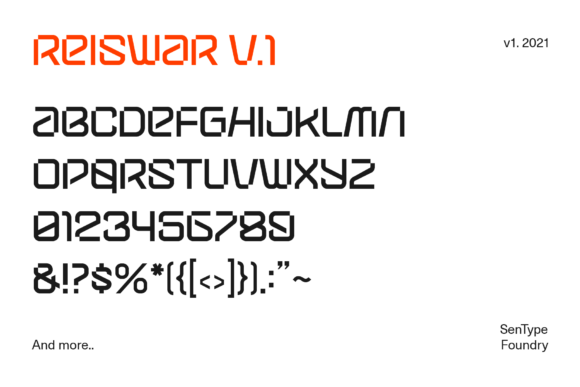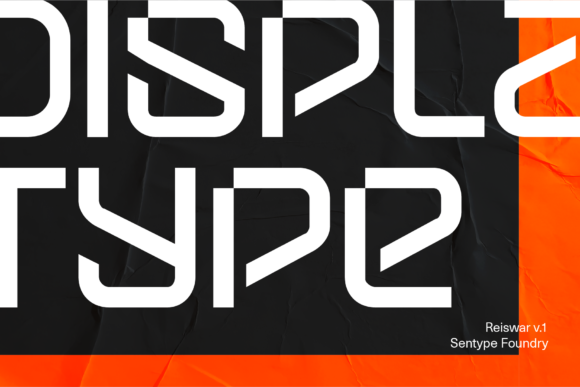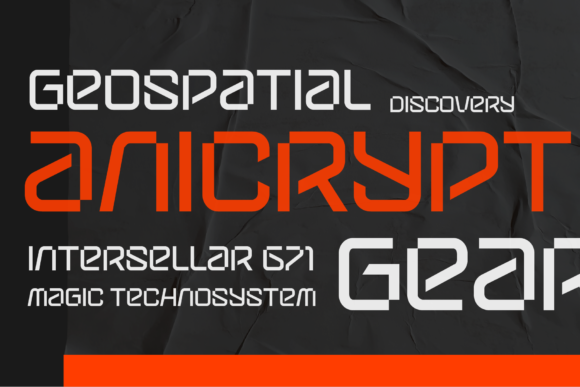
Introduction to Reiswar Font
Have you ever stared at a blank canvas, trying to bring your creative vision to life, but struggling to find the perfect font to set the tone? That’s a moment many designers can relate to. For those seeking a futuristic touch, the Reiswar Font is a game-changer. This cool and robotic styled display font is ideal for writing web designs, business cards, or pretty much anything else that requires a cutting-edge look.
As a valuable design resource, the Reiswar Font offers a high-quality solution for designers looking to add a touch of futurism to their creative projects. With its unique, high-tech aesthetic, this font is perfect for those who want to make a statement and stand out from the crowd.
Key Features of Reiswar Font
- Unique and stylish font perfect for modern designs and layouts
- Designed to be versatile and suitable for a wide range of creative projects
Honest Review: Reiswar Font
As a designer, I’m always on the lookout for high-quality design resources to elevate my creative projects. Recently, I stumbled upon the Reiswar Font, and I’m excited to share my honest review with you.
Here’s what I like about the Reiswar Font:
- ✨ High-quality font with a unique, stylish design that adds a touch of sophistication to any project.
- ✨ Highly versatile font that works well for both digital and print projects.
- ⚠️ Limited character set, which may not be ideal for designers who need a wide range of characters.
Overall, I’m impressed with the Reiswar Font’s unique design and versatility. While it may have some limitations, it’s an excellent resource for designers who need a high-quality, stylish font for their creative projects.
Tips for Getting the Most Out of Reiswar Font
When working with Reiswar Font, consider the following tips: experiment with different font combinations, use it in conjunction with images and other design elements, and adjust the font size and color to suit your design needs.
Reiswar Font is suitable for a variety of creative projects, including: infographics, posters, social media graphics, presentations, and documents. Its high-quality design and transparent background make it an ideal choice for designers looking for a versatile and effective design resource.